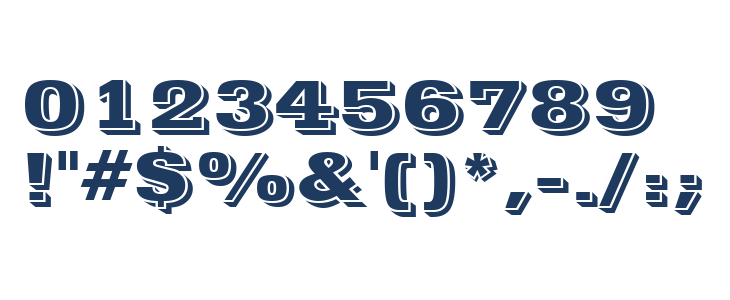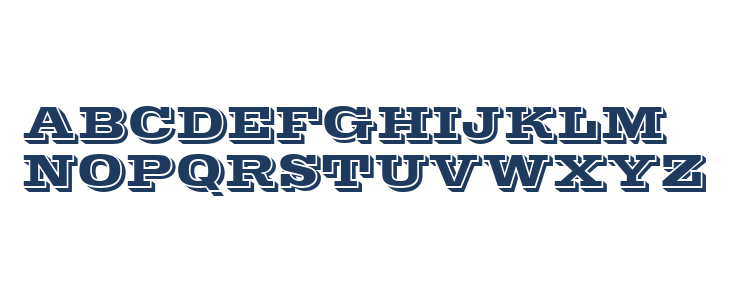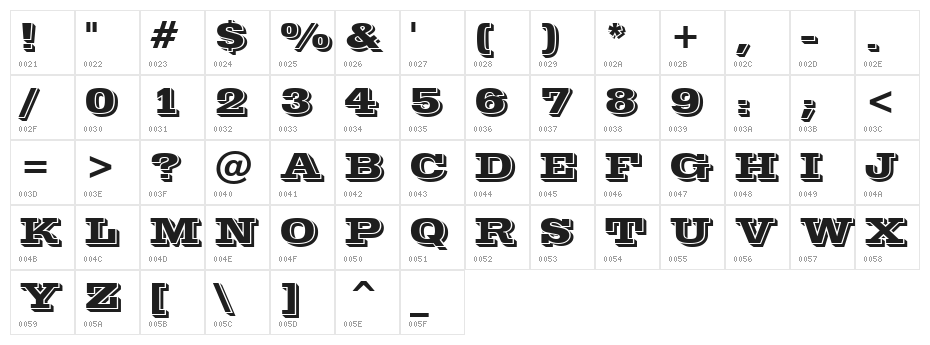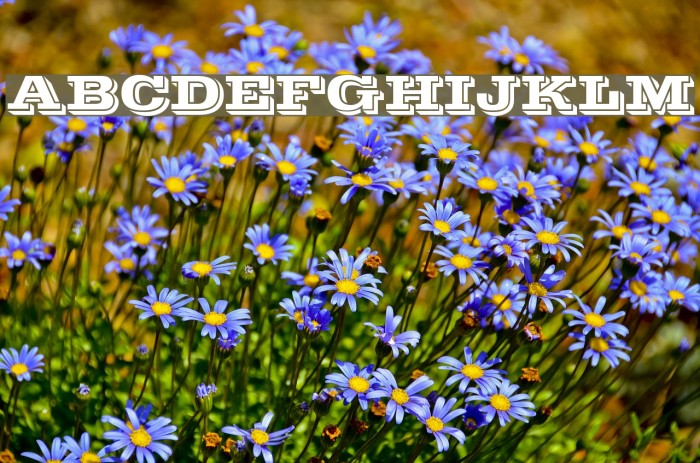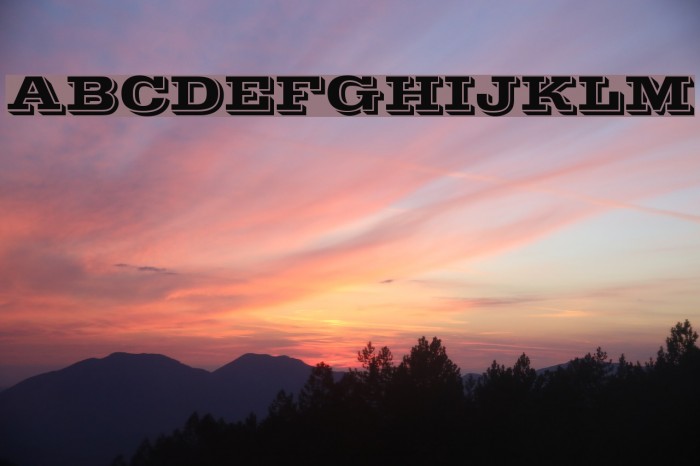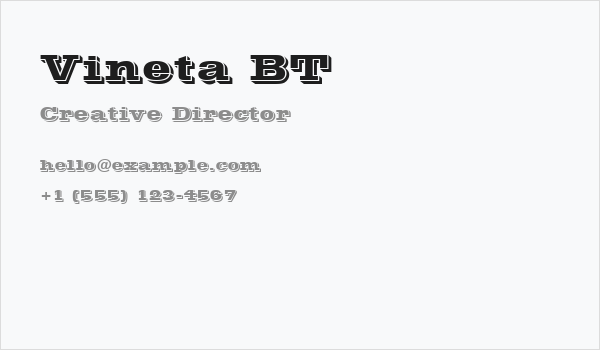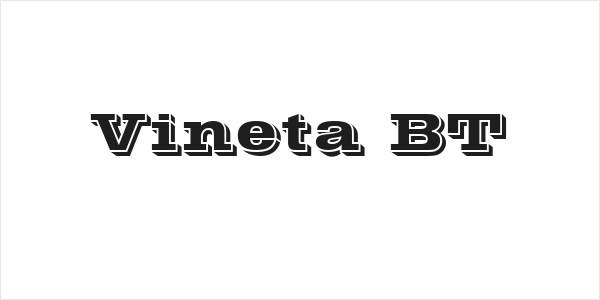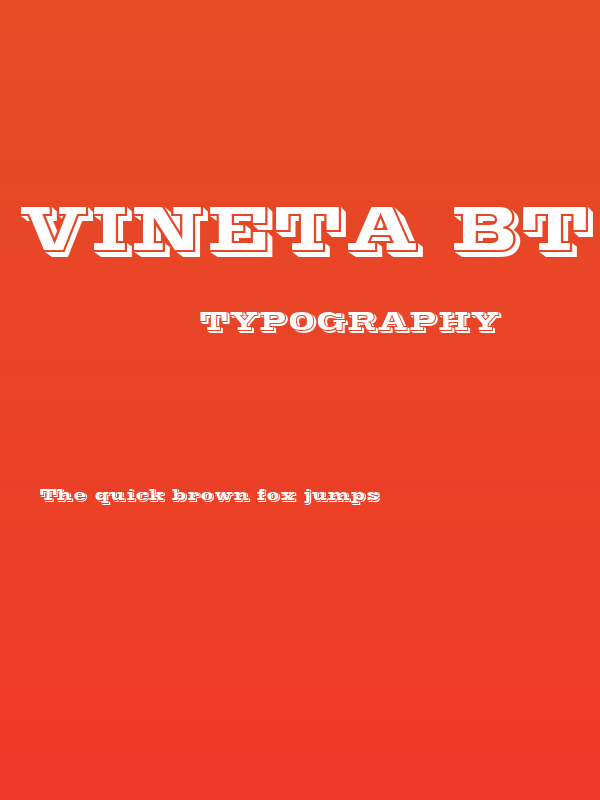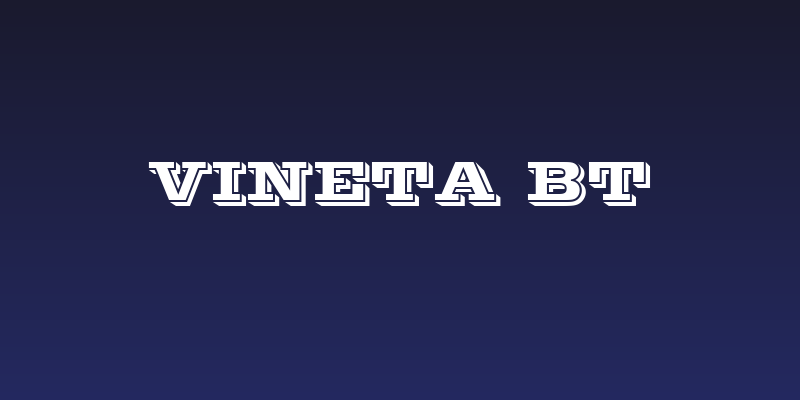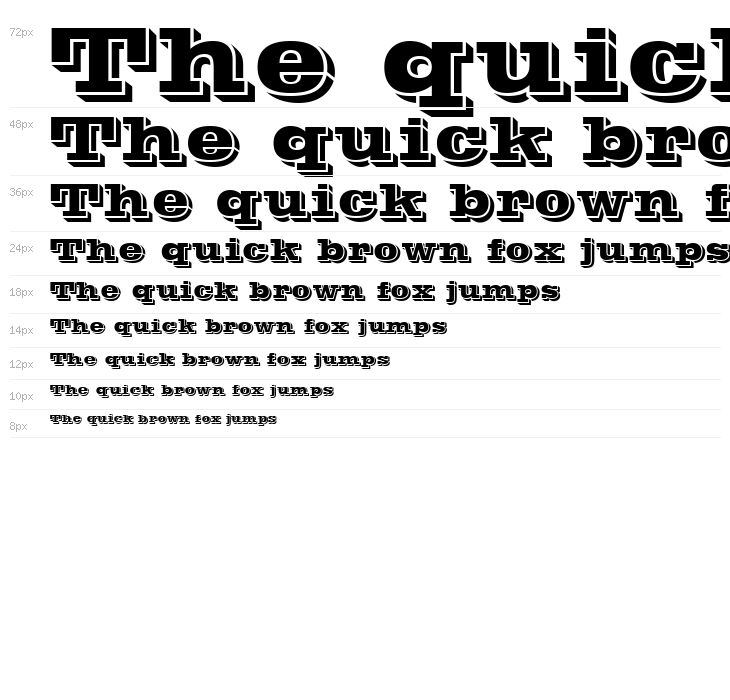
Vineta BT Font
Vineta BT Description
This font features a bold and impactful design with a strong presence. Each character is outlined, creating a shadow effect that adds depth and dimension. The uppercase and lowercase letters maintain a consistent style, with thick strokes and a solid structure. The numerals and special characters are equally robust, ensuring uniformity across all text elements. This font's boldness makes it ideal for attention-grabbing designs, while its structured form ensures readability. The overall aesthetic is both modern and classic, making it versatile for various applications.
| Proposed Projects | Ideal for posters, headlines, logos, and branding materials where a strong visual impact is needed. |